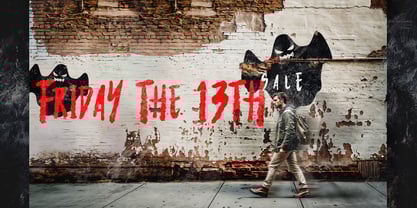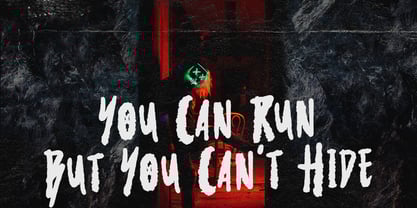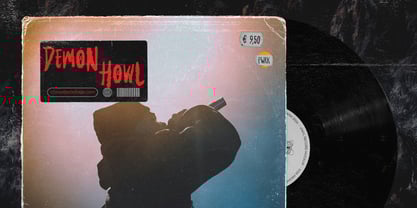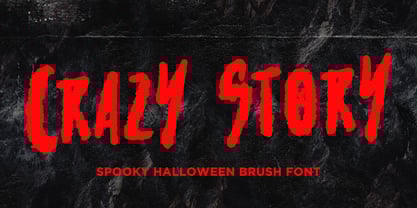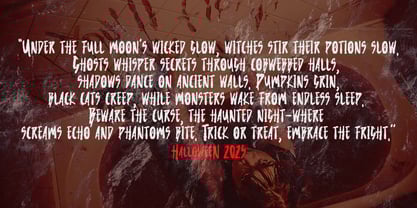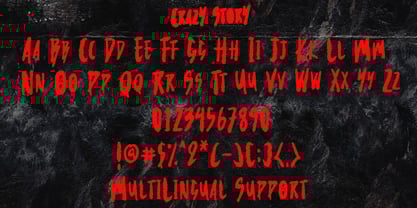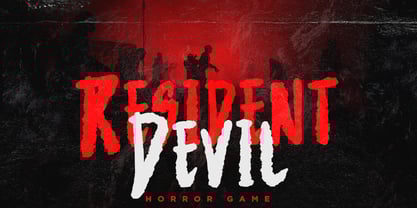
Crazy Story
The Crazy Story Font Family was designed by Dimas Prasetyo and published by DM Studio. Crazy Story contains 1 styles. More about this family
Crazy Story – Spooky Halloween Brush Font
Crazy Story is a spooky corporate logo brush font that delivers boldness, fear, and personality in every stroke. Designed with a distressed dry-brush texture and raw handcrafted detail, this typeface brings your scariest ideas to life — perfect for Halloween branding, haunted event posters, creepy social media headers, and of course, horror-themed corporate logo designs.
This font isn't just for fright night. Its dynamic, chaotic brush forms also lend themselves to edgy branding, album covers, streetwear graphics, and theatrical visuals. If your project needs something bold, eerie, and unforgettable, Crazy Story is ready to haunt your headlines.
Use it to make bold, spine-chilling statements that resonate with rebellious brands, fearless creatives, and seasonal campaigns.
Features:
• Uppercase Brush Characters A–Z
• Textured Brush Stroke Detailing
🎯 Best For:
• Horror film posters & titles
• Spooky product branding
• Halloween marketing campaigns
• Scary social media posts
• Haunted house flyers
• Gritty corporate logos